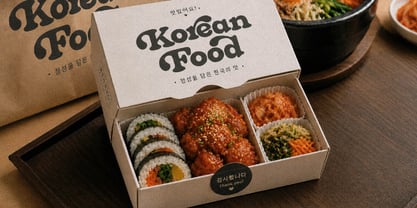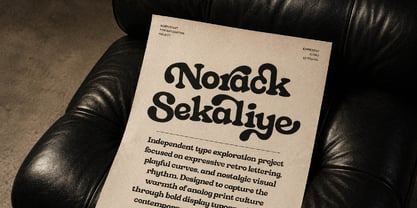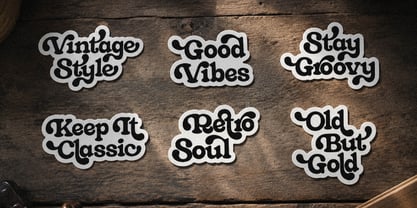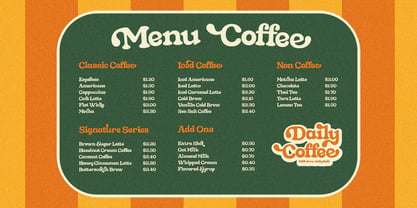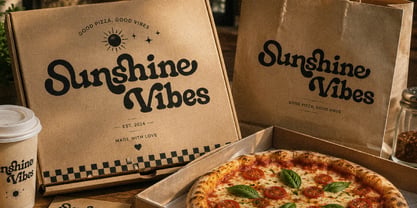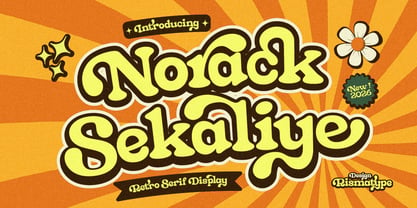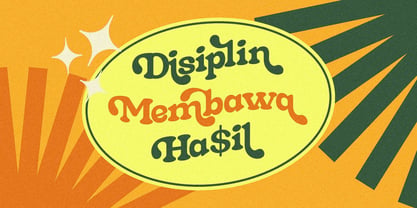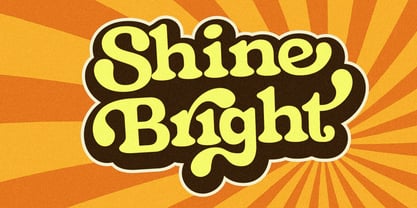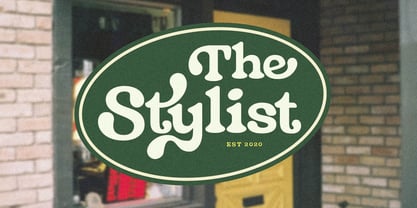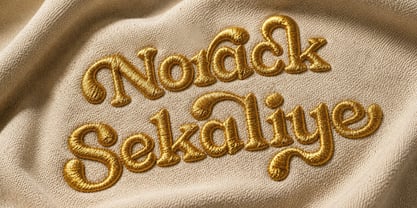
Norack Sekaliye
The Norack Sekaliye Font Family was designed by Risma Mulyasari and published by Risma Type. Norack Sekaliye contains 2 styles and family package options. More about this family
Norack Sekaliye is a sophisticated retro serif display typeface that draws inspiration from vintage editorial typography, classic print culture, and cinematic luxury aesthetics. With its bold contrasts, elegant curves, and refined serif details, this typeface infuses a timeless character into modern branding and creative projects. The font seamlessly blends nostalgic retro influences with contemporary visual balance, making it ideal for a variety of applications including logo design, fashion branding, magazine layouts, posters, packaging, social media visuals, and premium identity systems. Its distinctive display style ensures a strong visual impact while maintaining an elegant and professional appearance. Norack Sekaliye is meticulously crafted for designers aiming to create expressive typography that embodies a luxurious vintage atmosphere paired with modern editorial sophistication. Perfect for: • Branding & Visual Identity • Editorial & Magazine Design • Luxury Packaging • Fashion Campaigns • Posters & Headlines • Logo Design • Cinematic Typography • Social Media Graphics. Features: • Uppercase & Lowercase • Numerals & Punctuation • Multilingual Support • Elegant Retro Serif Style • High-Contrast Display Letterforms. Norack Sekaliye delivers a timeless retro aesthetic with a premium contemporary edge.